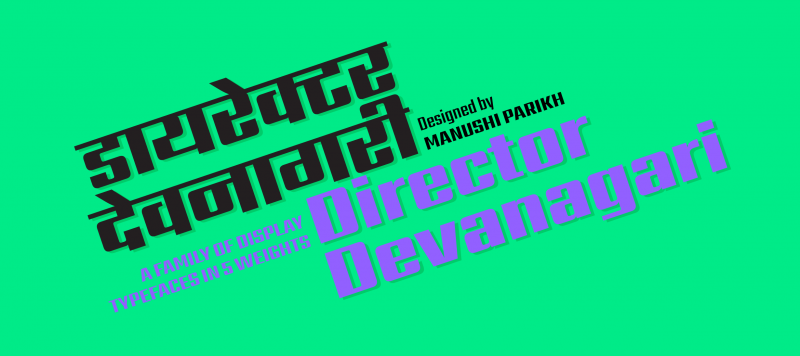
Director Devanagari is a display type family with a minimalistic appearance and squared style. Across each of the family’s five fonts, all of the horizontal strokes share a consistent thickness, while the vertical strokes grow thicker with each new weight. So Director Devanagari Regular’s strokes are almost monolinear, but Director Devanagari’s heavy weight has very severe stroke contrast. Each font includes 776 glyphs, fully supporting the conjuncts and ligatures required by languages written with the Devanagari script.
Family Name Director Devanagari
Designer(s) Manushi Parikh
Available Style Regular, Medium, Semibold, Bold, Heavy
Classification Sans, Display
Supported Languages Hindi, Marathi, Sanskrit